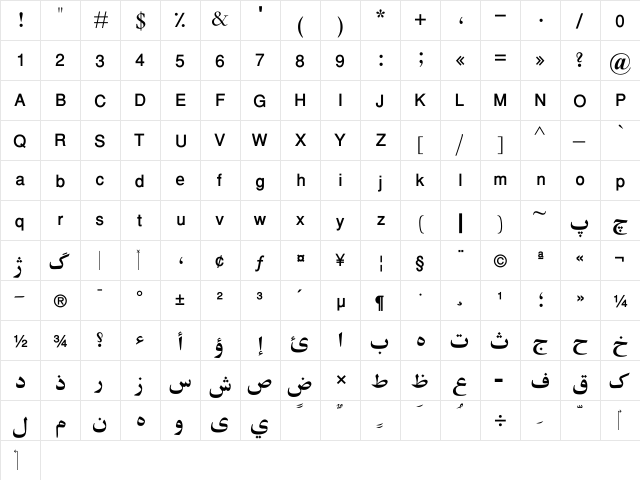
AGT Ahmad Wali Hotak Regular
| Designer | Ahmad Gul Totakhyl |
Design Context for AGT Ahmad Wali Hotak Typeface
AGT Ahmad Wali Hotak offers clean, dependable letterforms without strong stylistic allegiance, making it a practical choice for designers who need flexibility.
Pro Tip: Pair AGT Ahmad Wali Hotak with a font of contrasting weight or personality to build a more expressive typographic hierarchy.